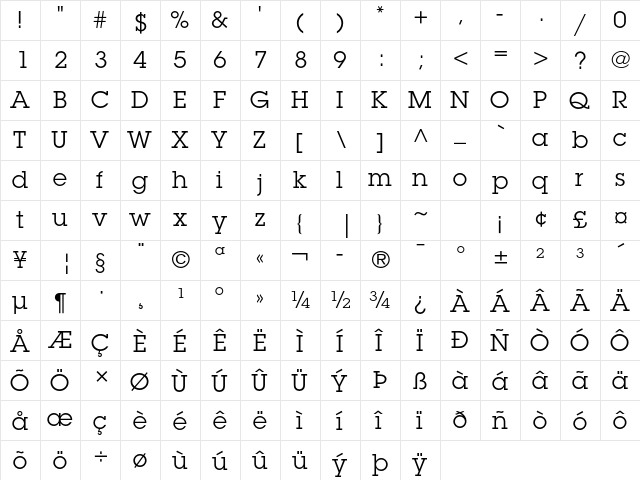
ITC Lubalin Graph Std Book
| Designer | Herb Lubalin |
Design Context for ITC Lubalin Graph Std Typeface
ITC Lubalin Graph Std takes a measured approach to typography — its balanced proportions and neutral character make it a reliable workhorse for both digital and print work.